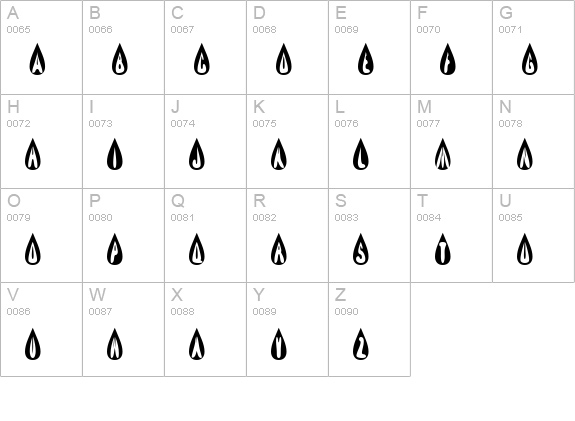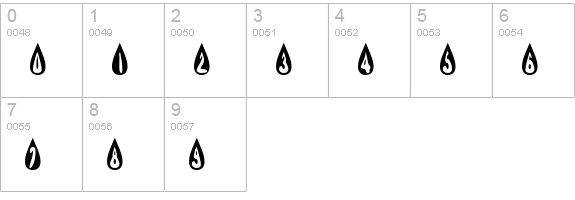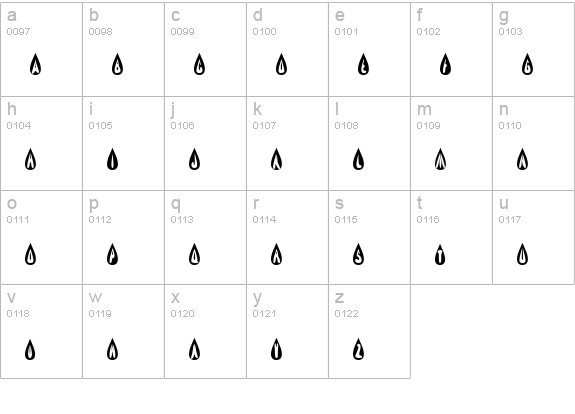
efBURNER Font Details
efBURNER is a stunningly bold and powerful font that is sure to make a statement in any design project. Its sharp edges and sleek lines give it a modern and edgy look that is perfect for headlines, logos, and branding materials. This font exudes confidence and strength, making it ideal for projects that require a strong and impactful visual presence. But what truly sets efBURNER apart is not only its impressive aesthetics, but also its accessibility. It is a free font that is freely available to download at FontsMarket.com. This means that you can easily incorporate this stunning typeface into your designs without having to worry about breaking the bank. With efBURNER, you can achieve professional-level results without having to spend a dime. Whether you are a professional designer looking to add a touch of boldness to your creations, or a beginner trying to make a statement with your first design project, efBURNER is the perfect font for you. With its free availability, you have the opportunity to experiment and explore the countless possibilities that this font offers. Don't miss out on the chance to elevate your designs with efBURNER. Download it for free at FontsMarket.com and let your creativity soar.